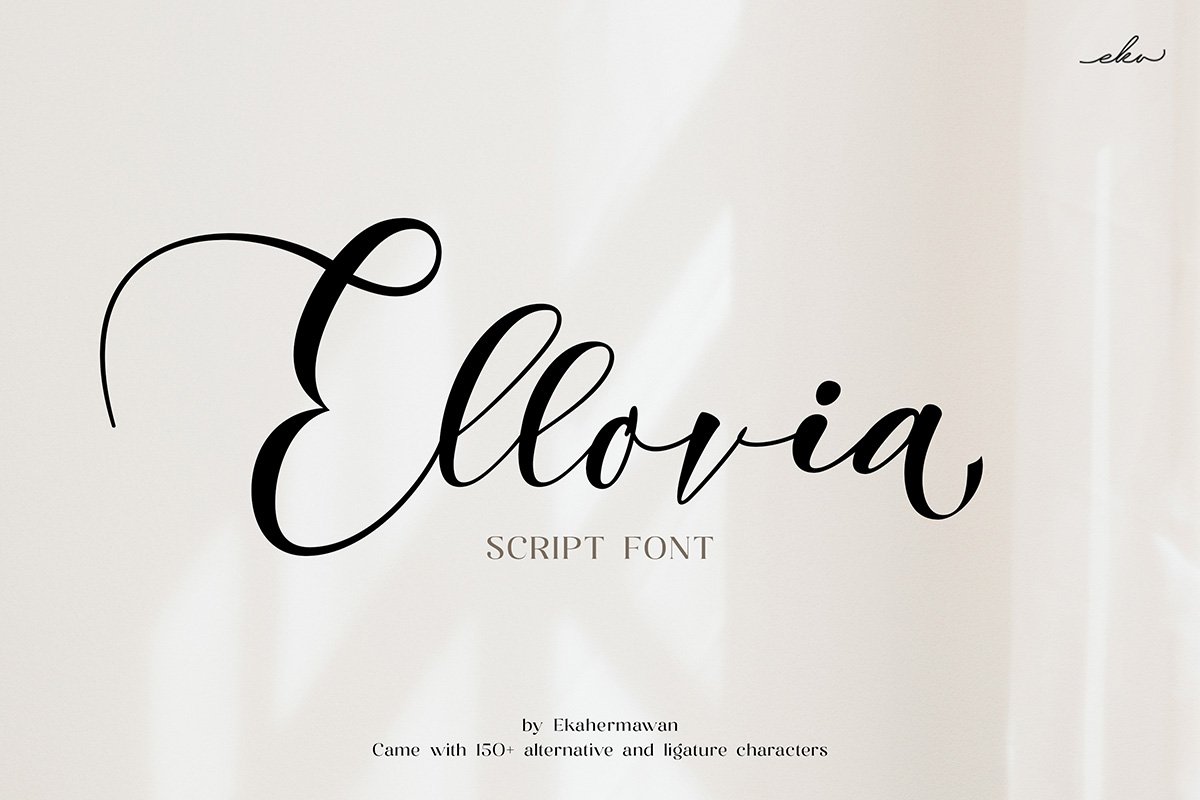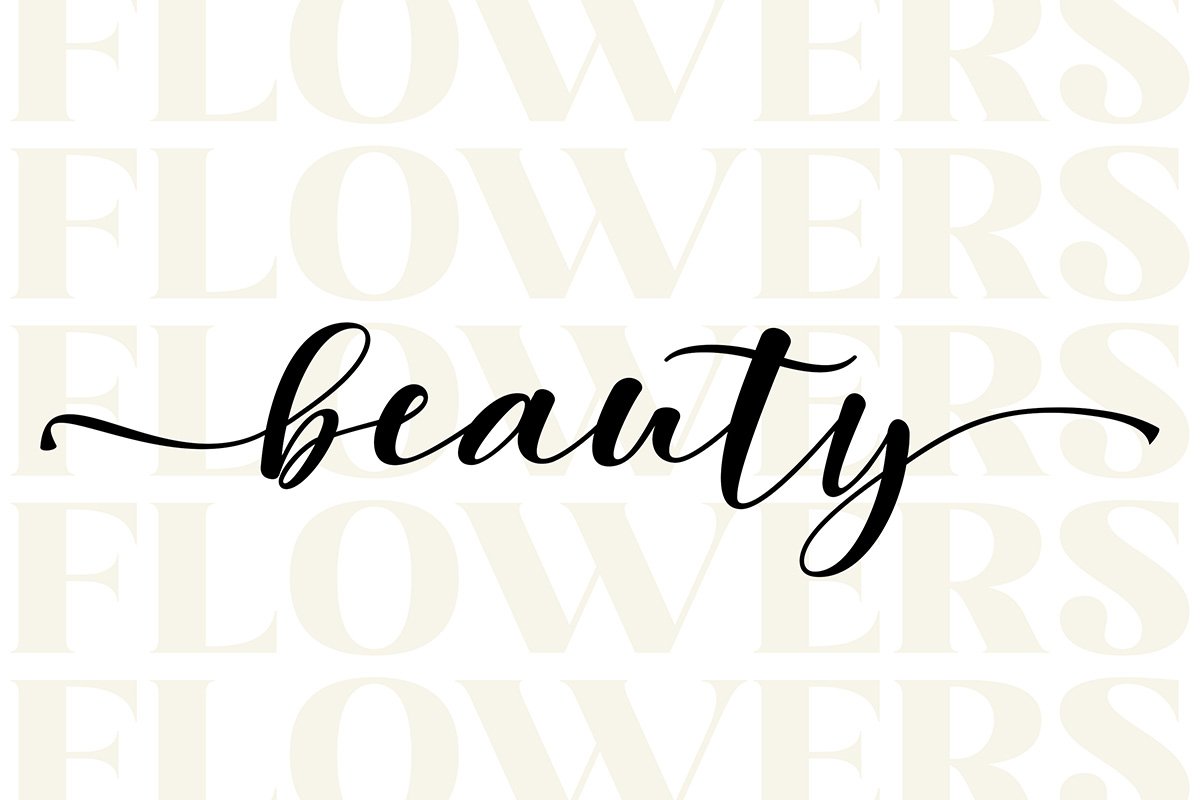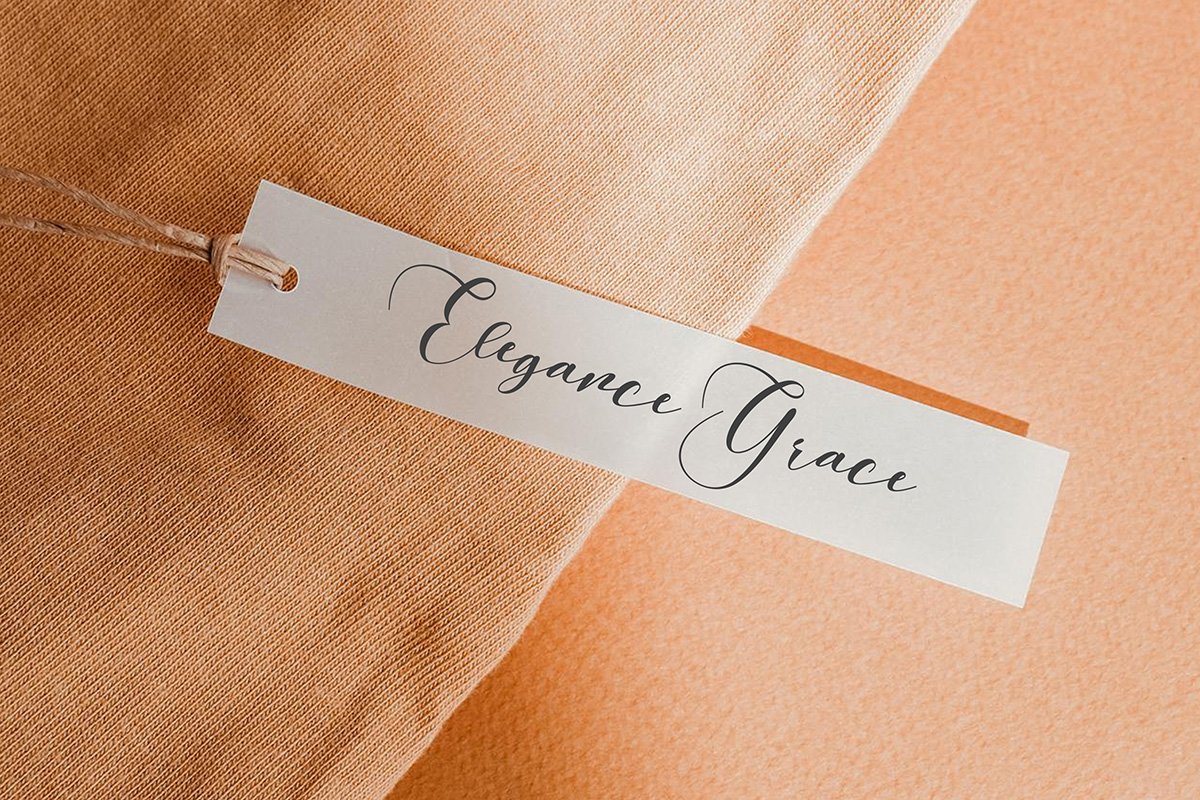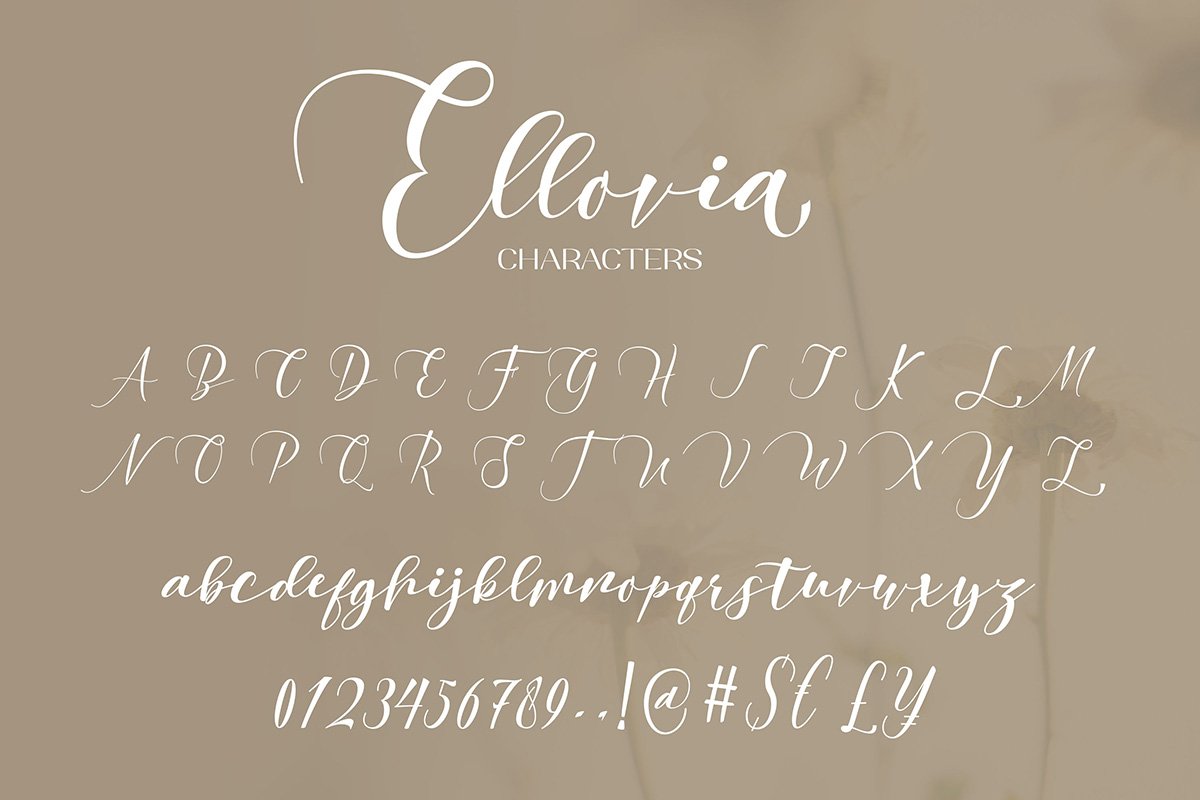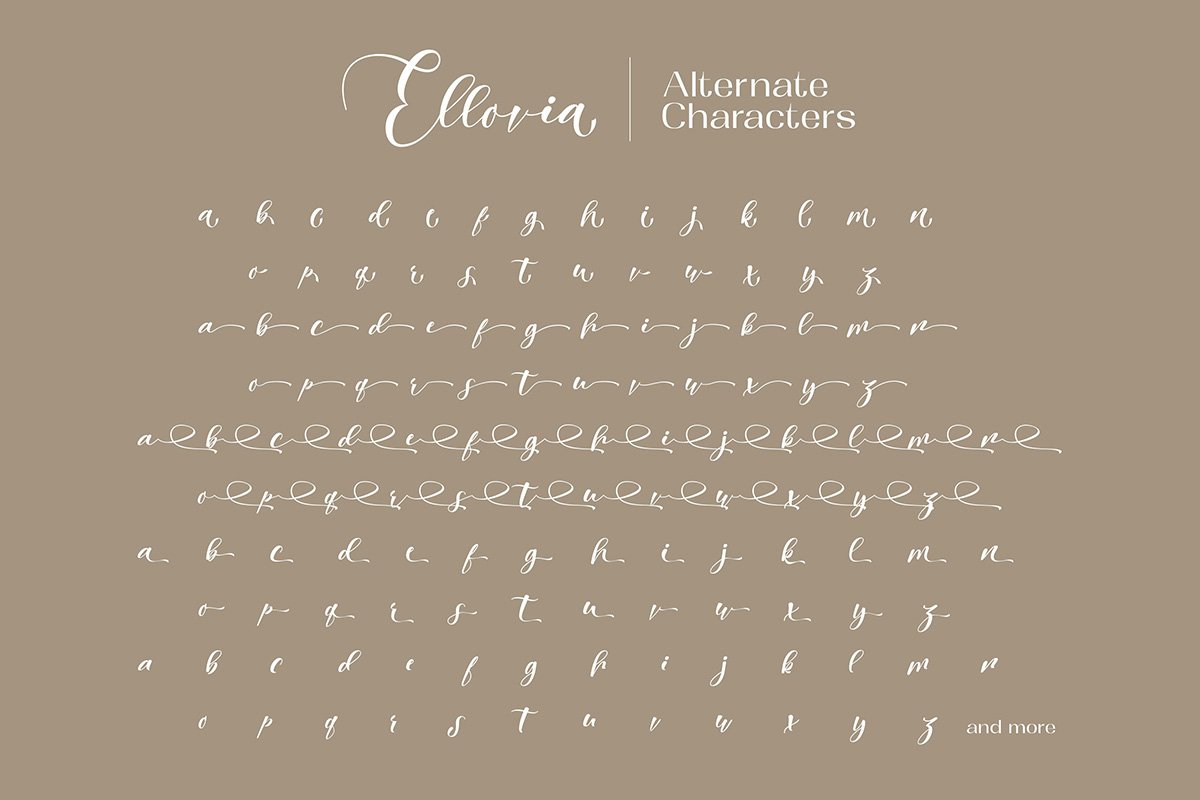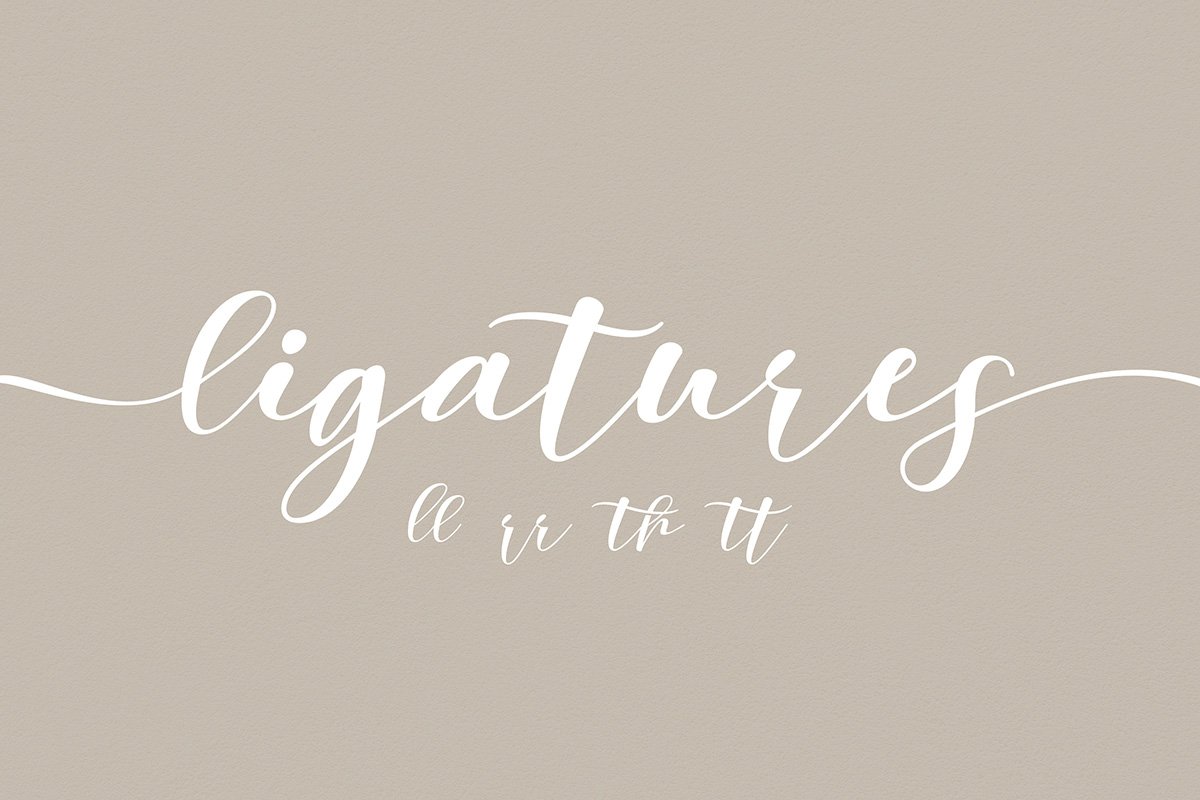
Ellovia – Script Font is here! It is a stylish font for every occasion. Unleash your creativity with Ellovia, a font designed for versatility, elegance, and modern flair. Whether you’re crafting a wedding invitation, a product label, or a brand logo, this hand-lettered font adds a personal touch that’s both sophisticated and approachable.
Ellovia